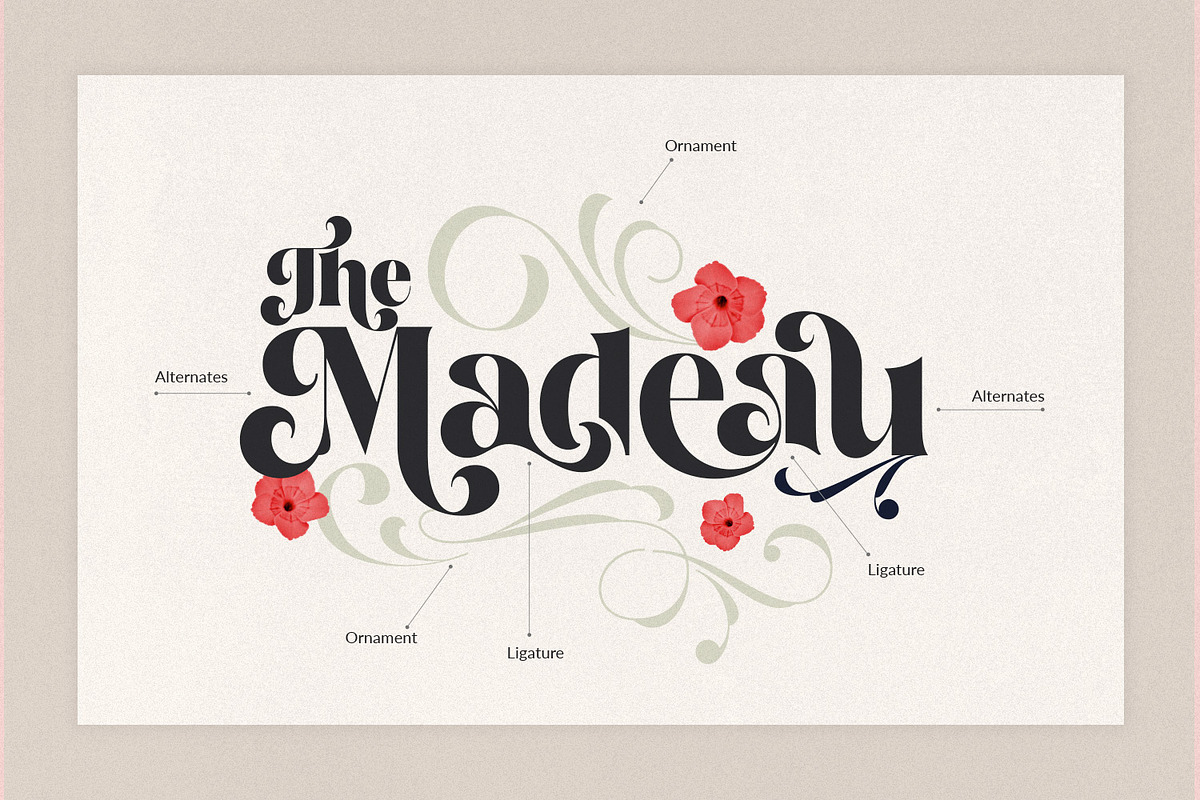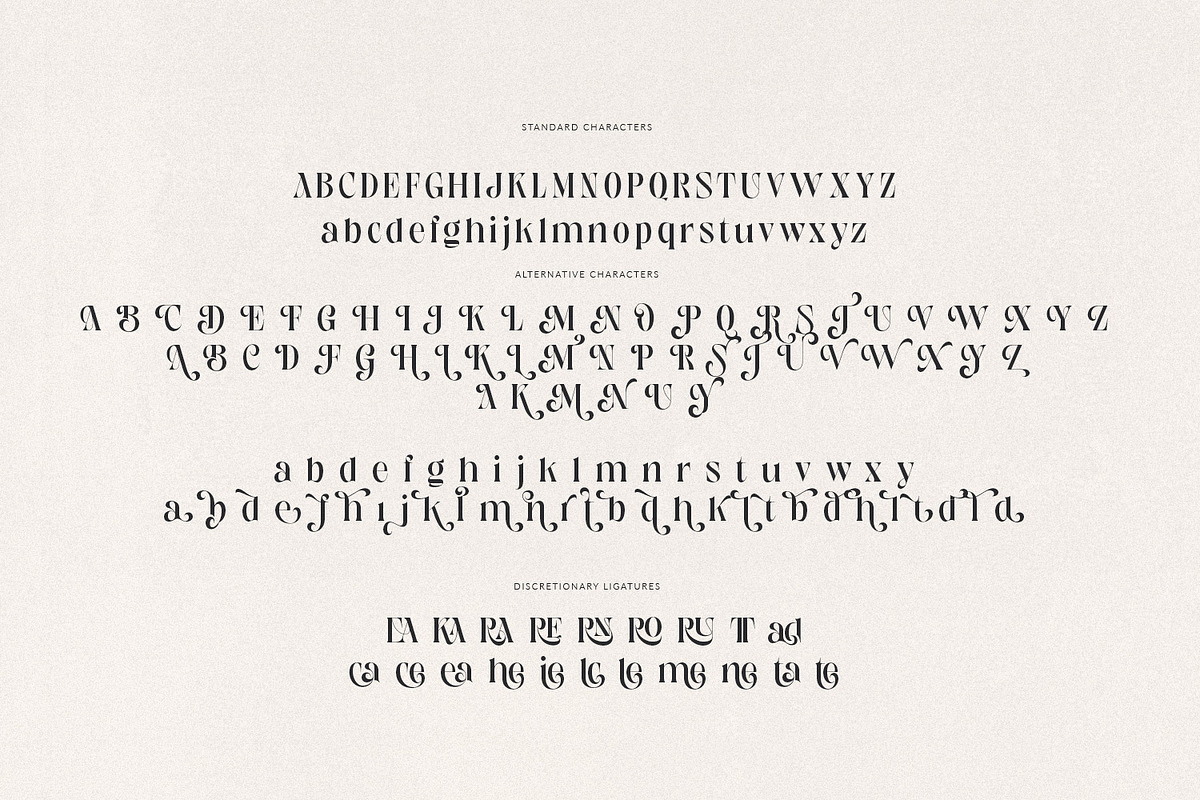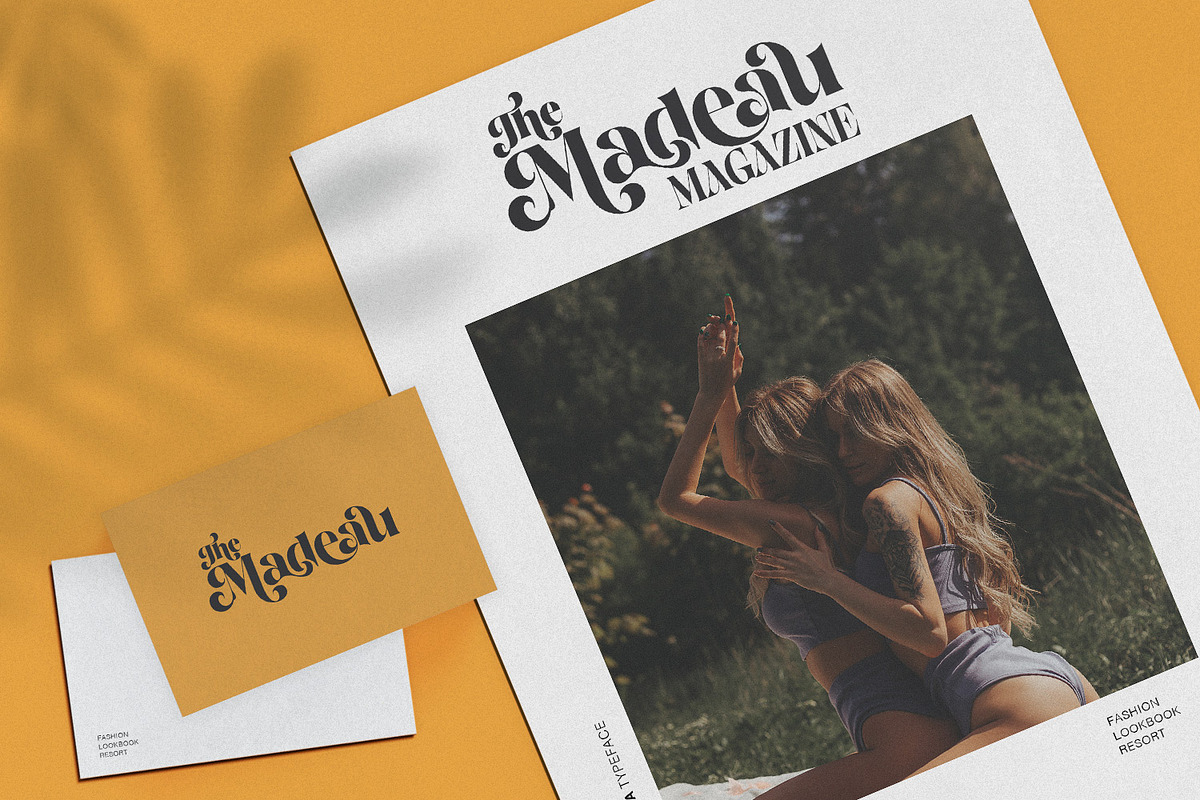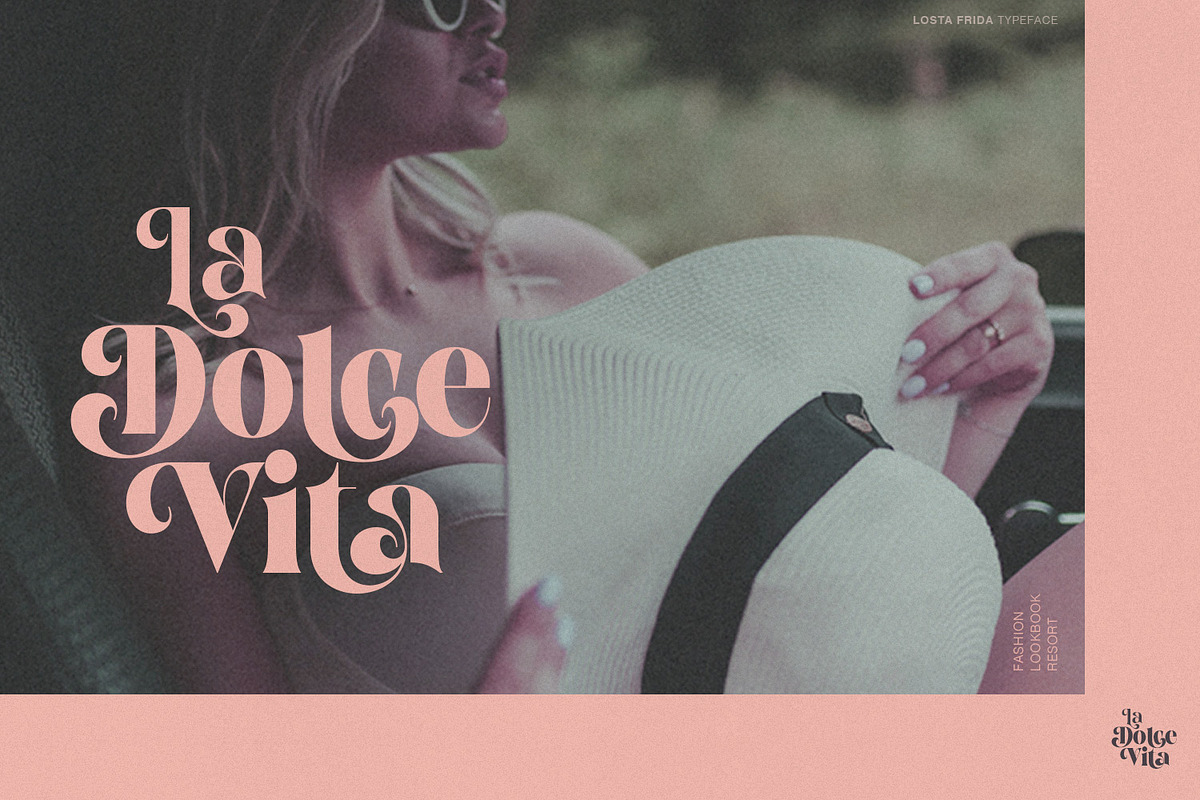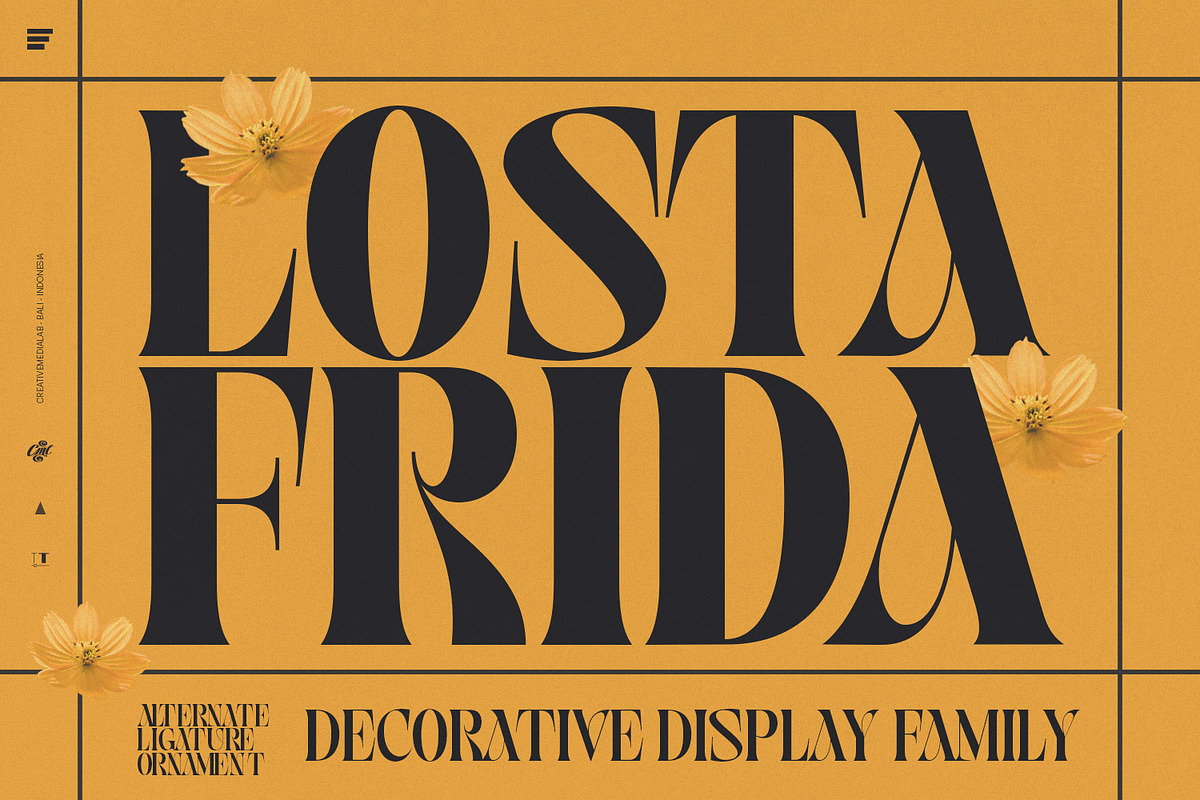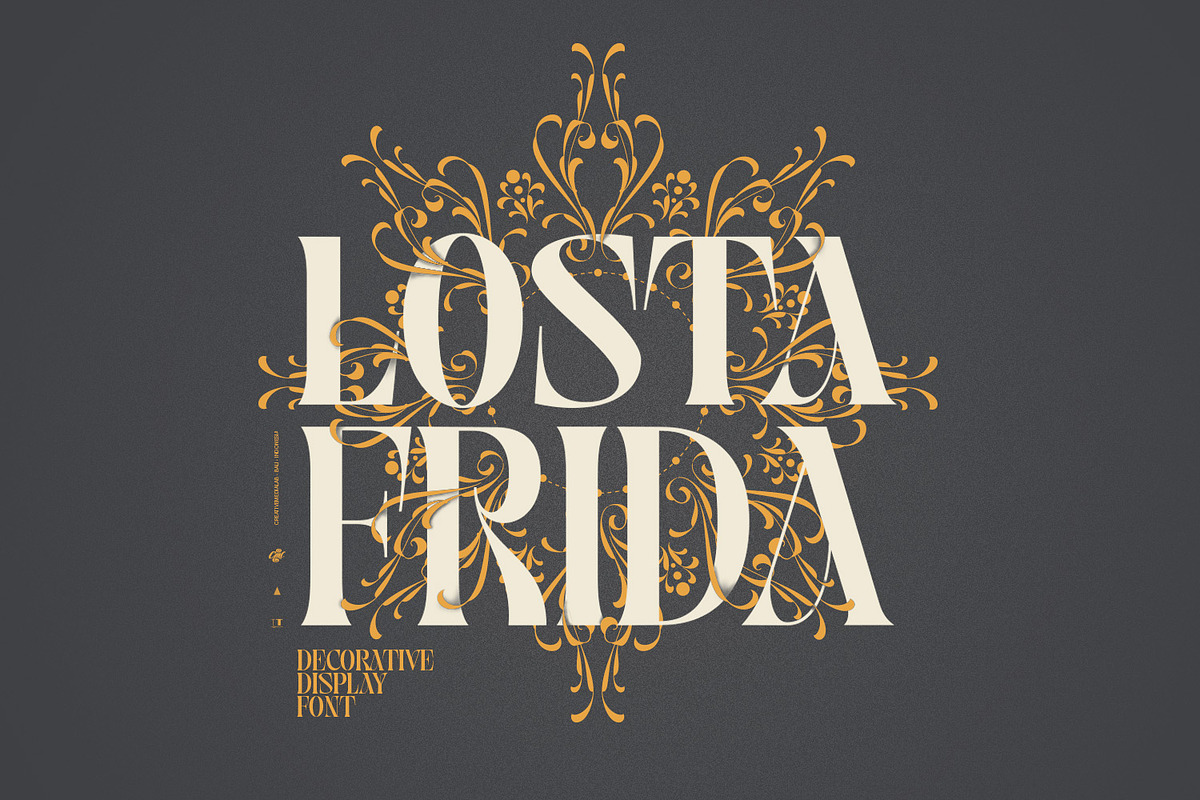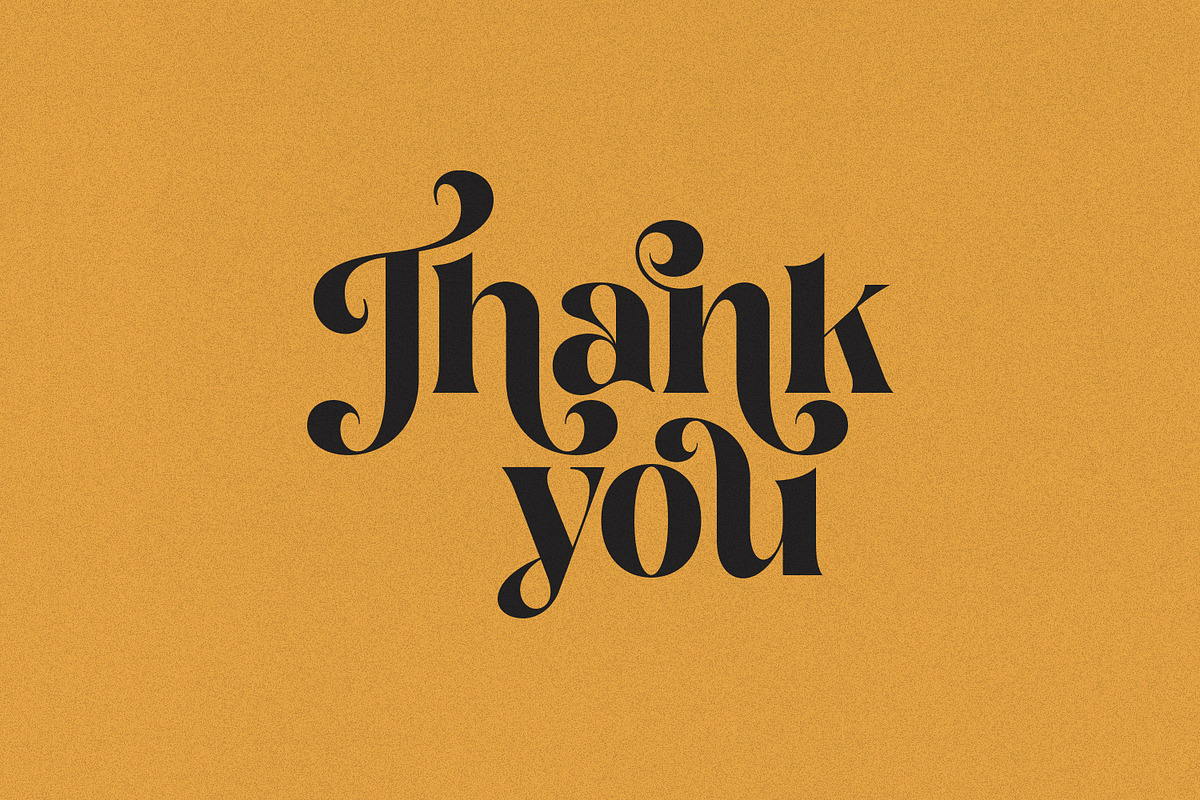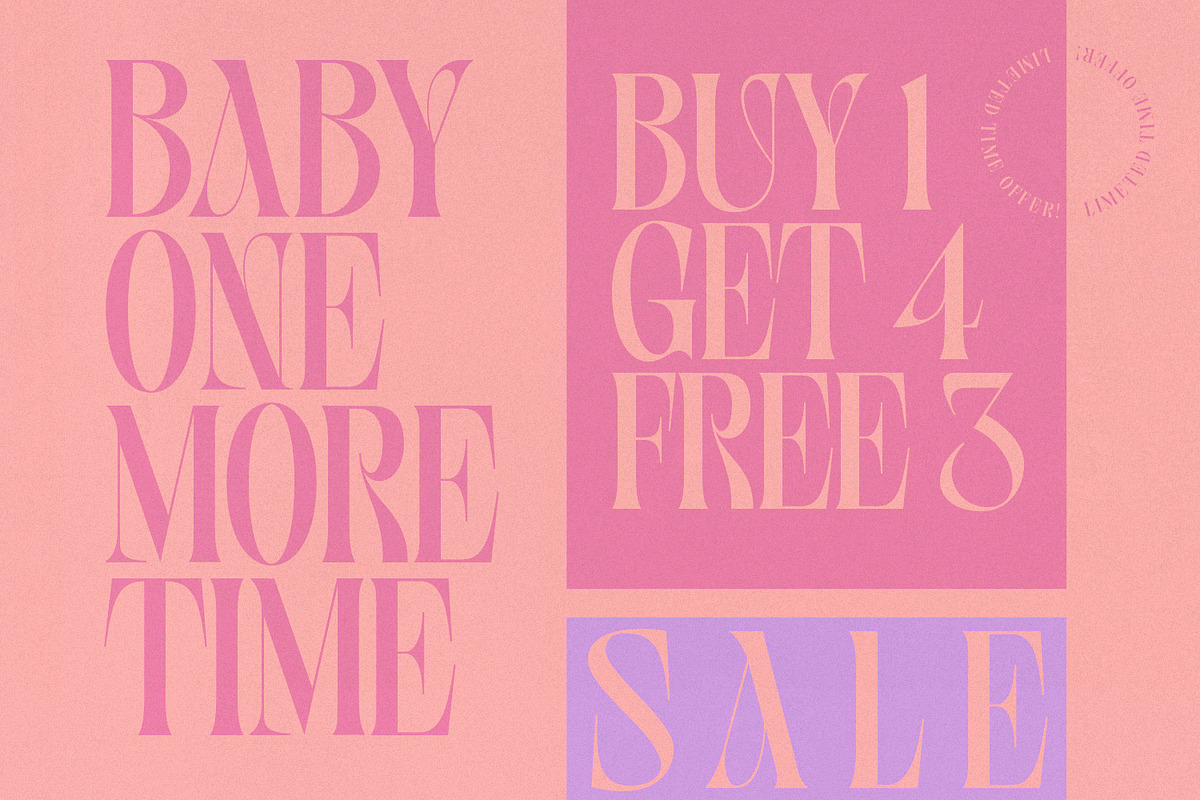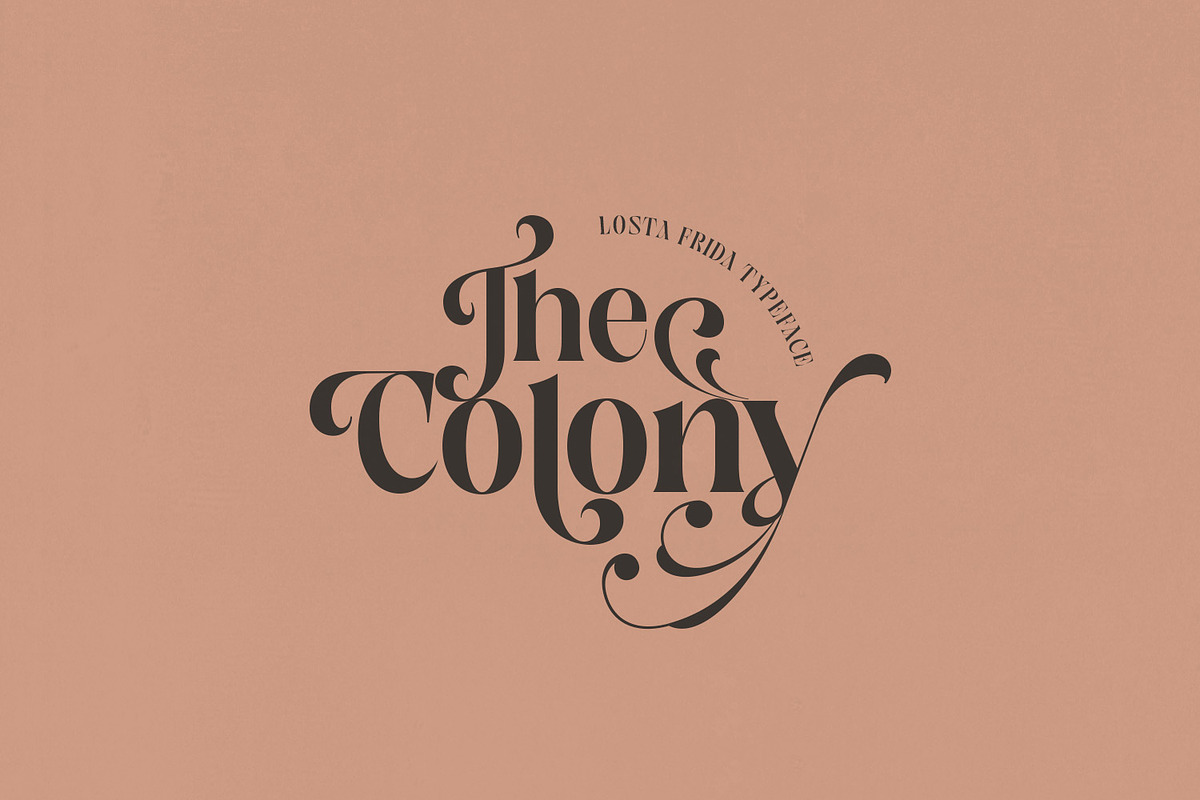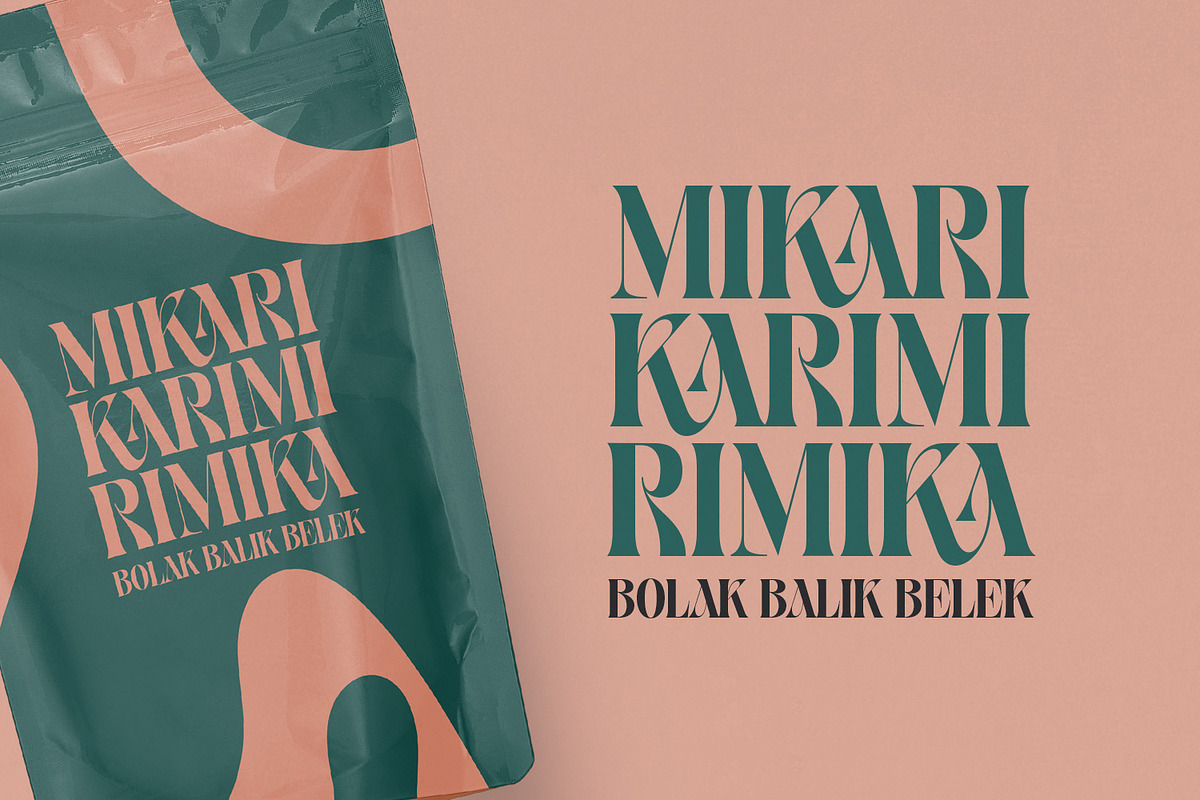
Losta Frida - Decorative family
Introducing Losta Frida
This family contains 5 weights and ornaments to create an artistic touch to your projects.
Has tons of alternates and ligatures. Best for branding, Webdesign project, Clothing brand, logo design, valentine's greetings, packaging, and much more. Comes with a variable format as well as multilingual support, numbers, and currency symbols.